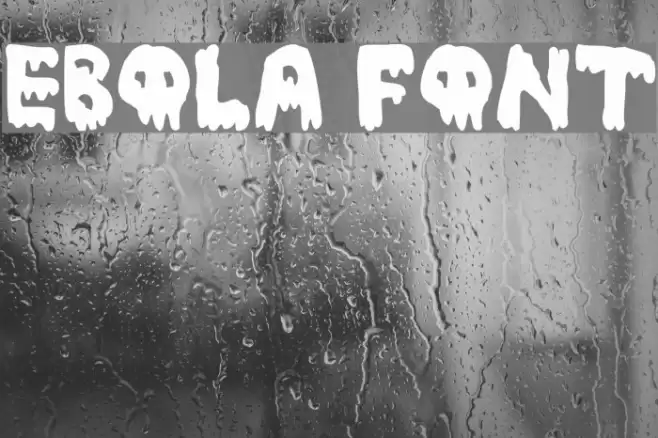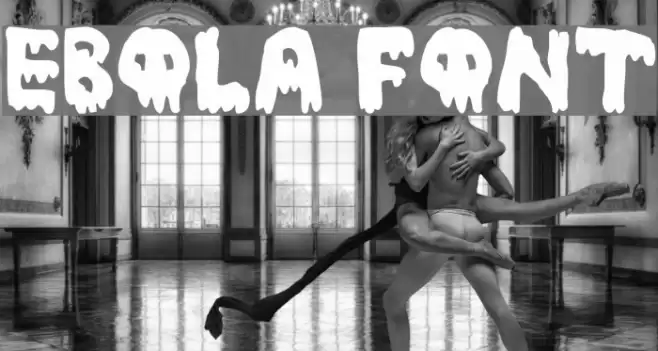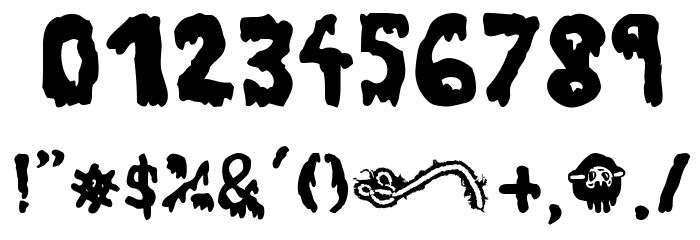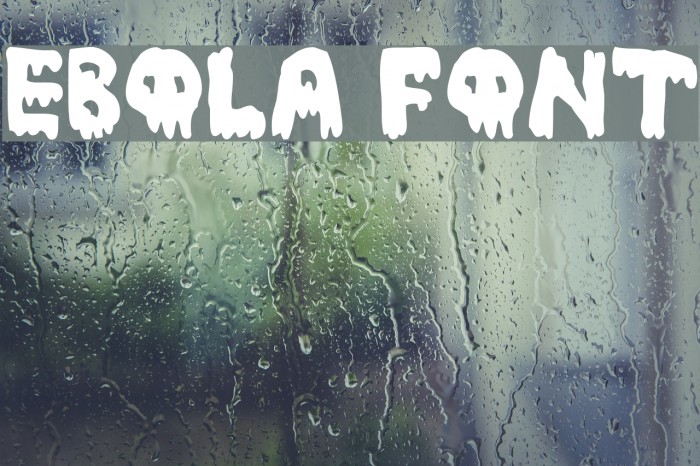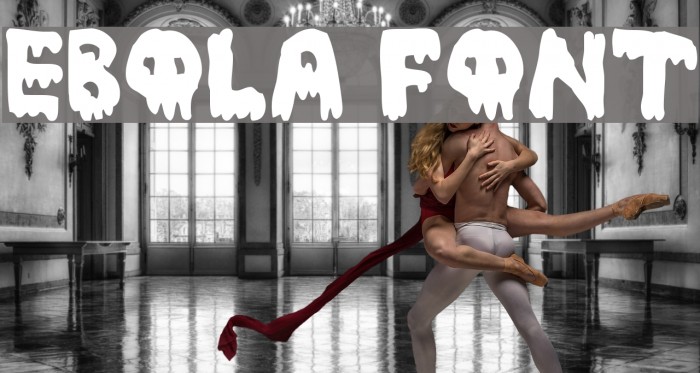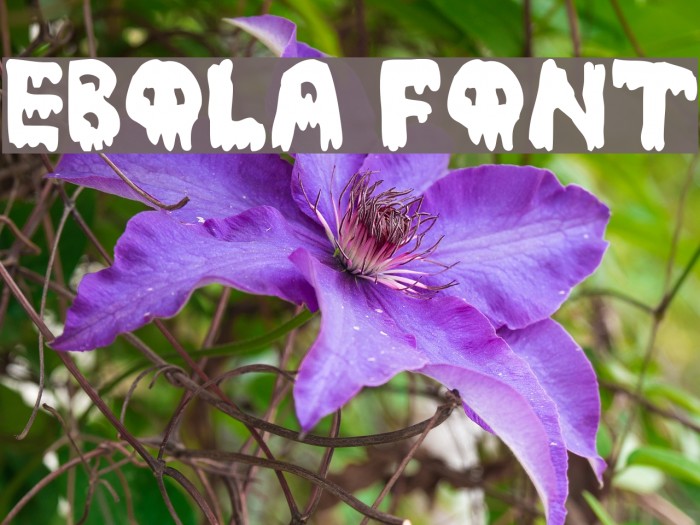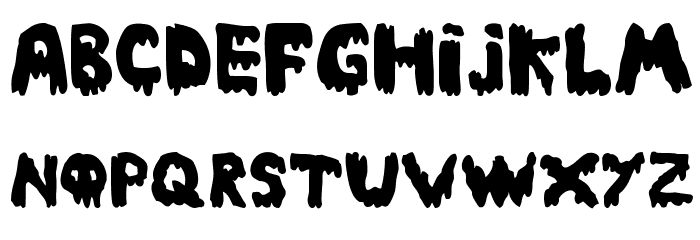
Ebola Font Font
Ebola Font Description
This font features a bold, dripping style that gives the impression of liquid or slime. The characters are irregular and organic, with uneven edges that create a sense of movement and fluidity. The uppercase and lowercase letters maintain a consistent thickness, contributing to a cohesive look. Numbers and special characters follow the same dripping motif, enhancing the overall theme. This font is visually striking and designed to grab attention, making it ideal for thematic or decorative purposes.
A bold, dripping font with an organic, fluid style from Horror fonts.
- Proposed Projects: Ideal for Halloween-themed designs, horror movie posters, spooky event invitations, or any project requiring a dramatic and eerie aesthetic.